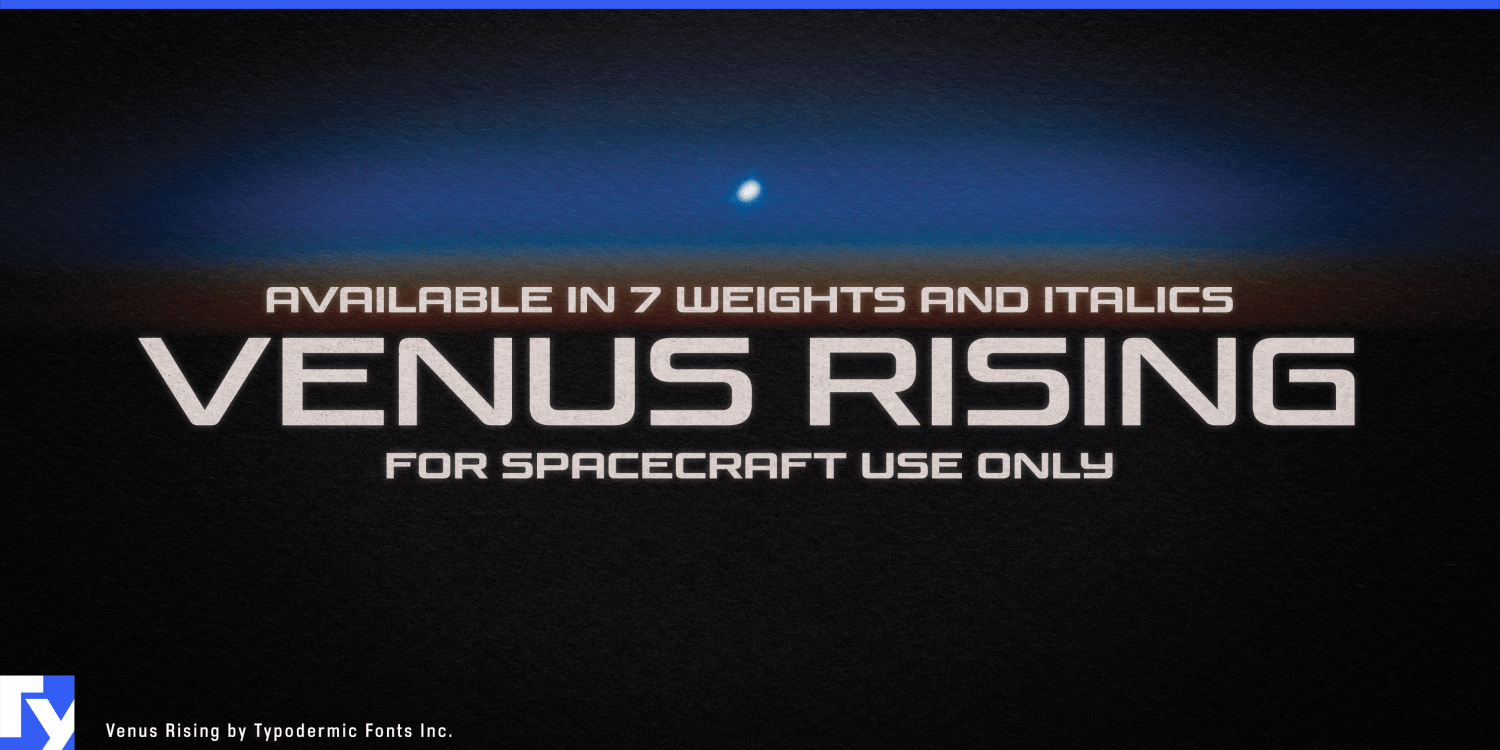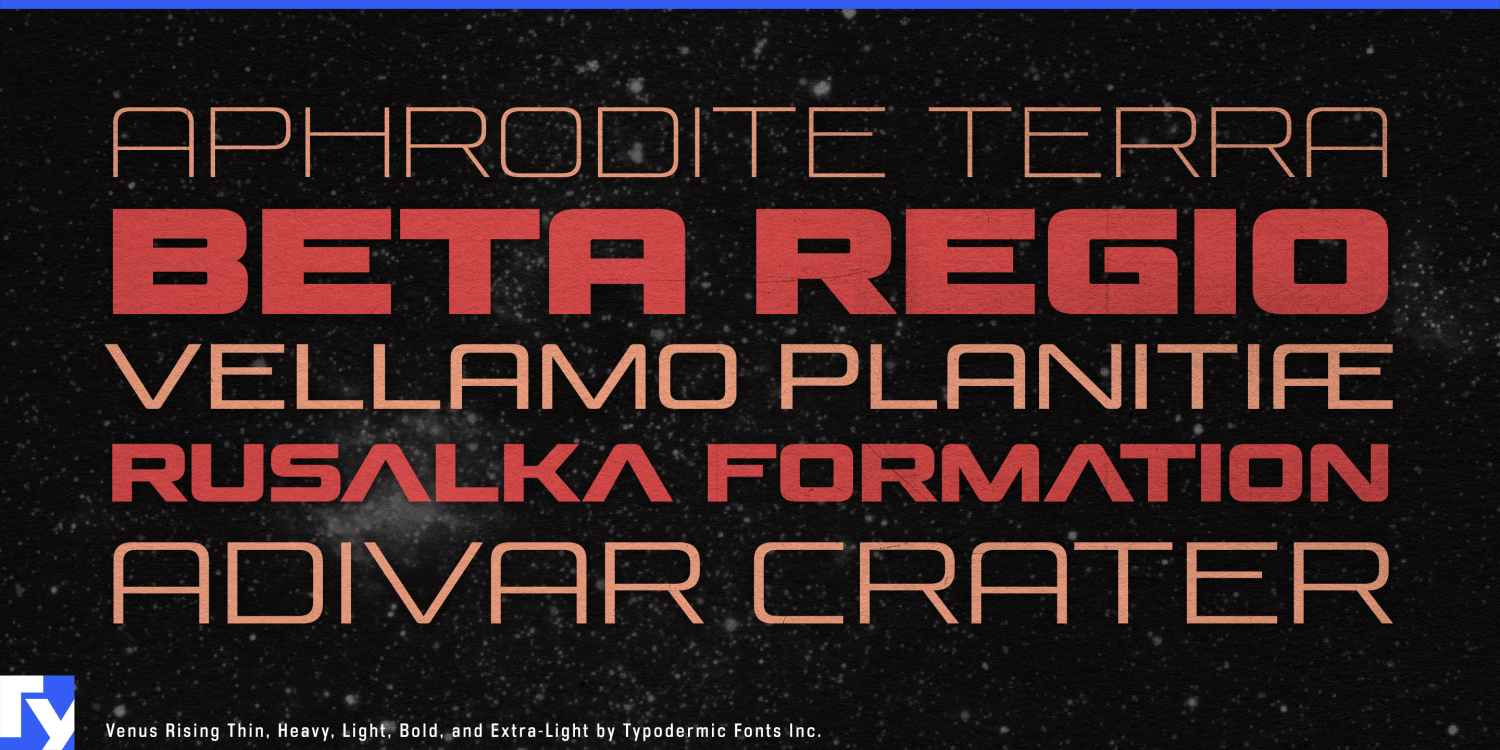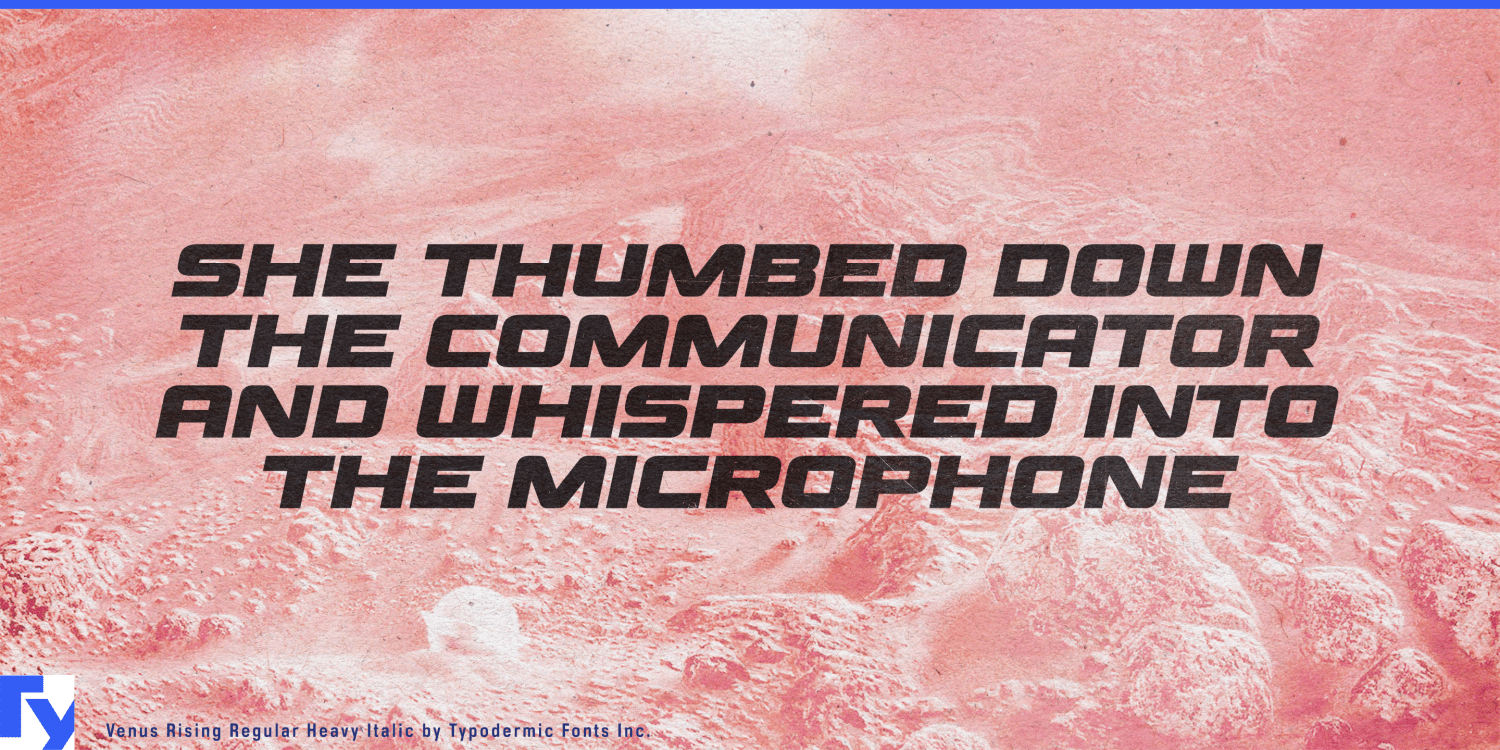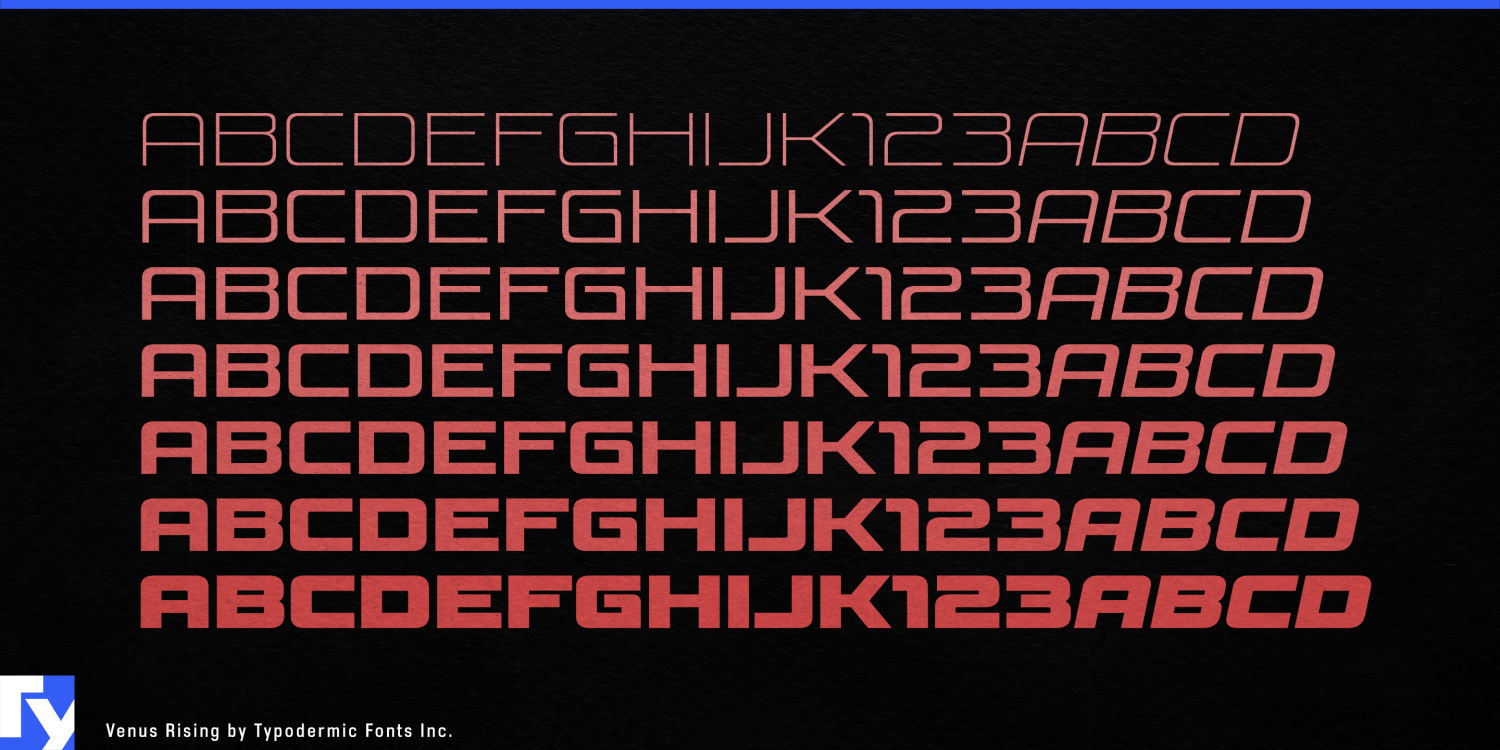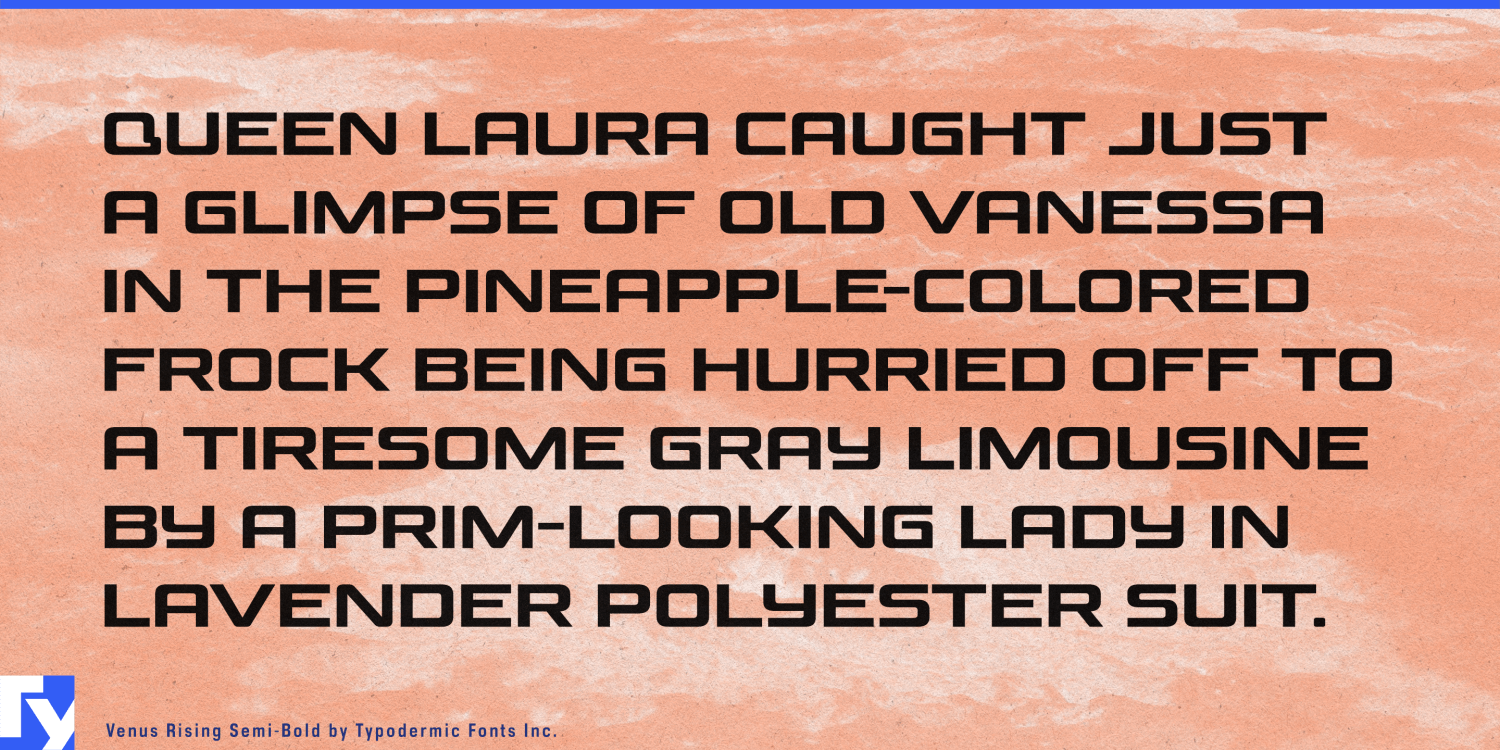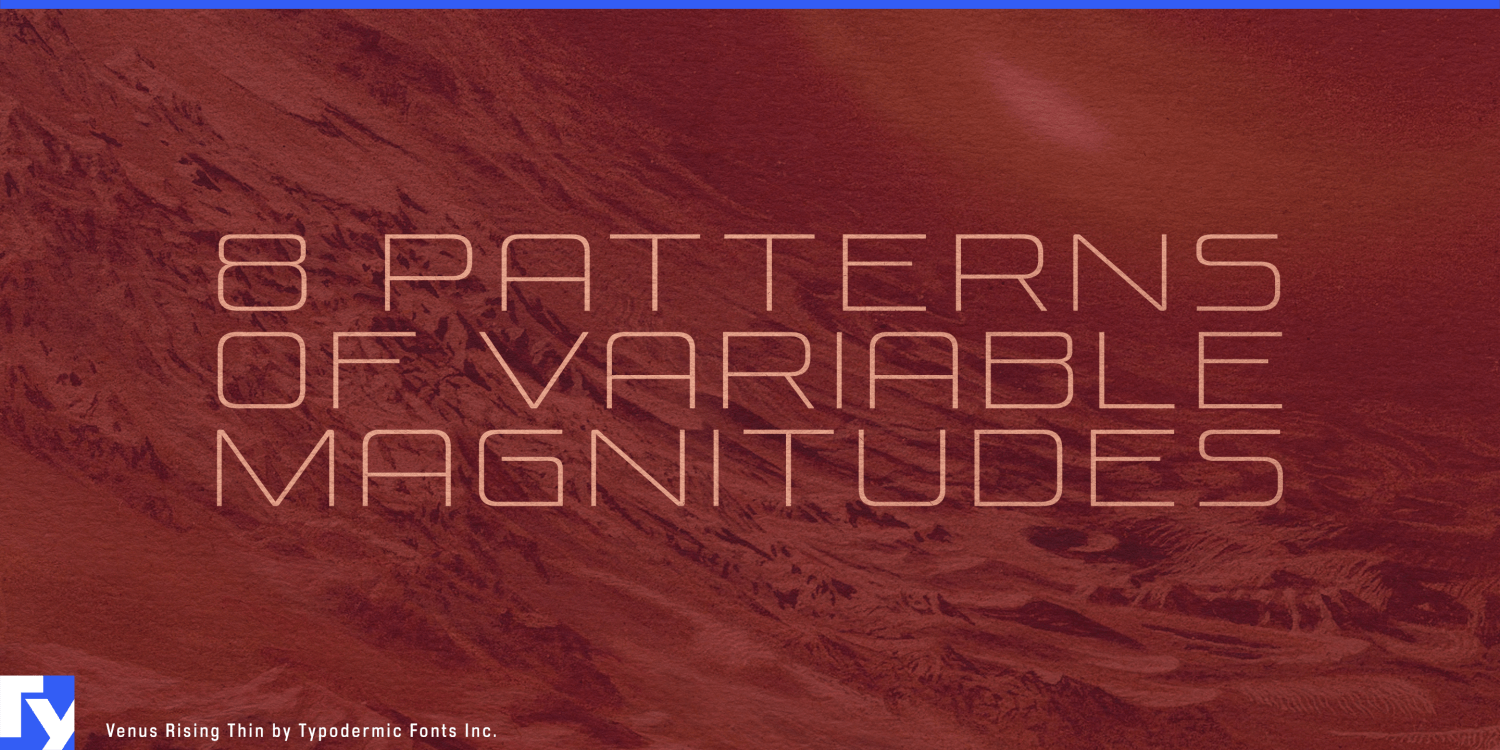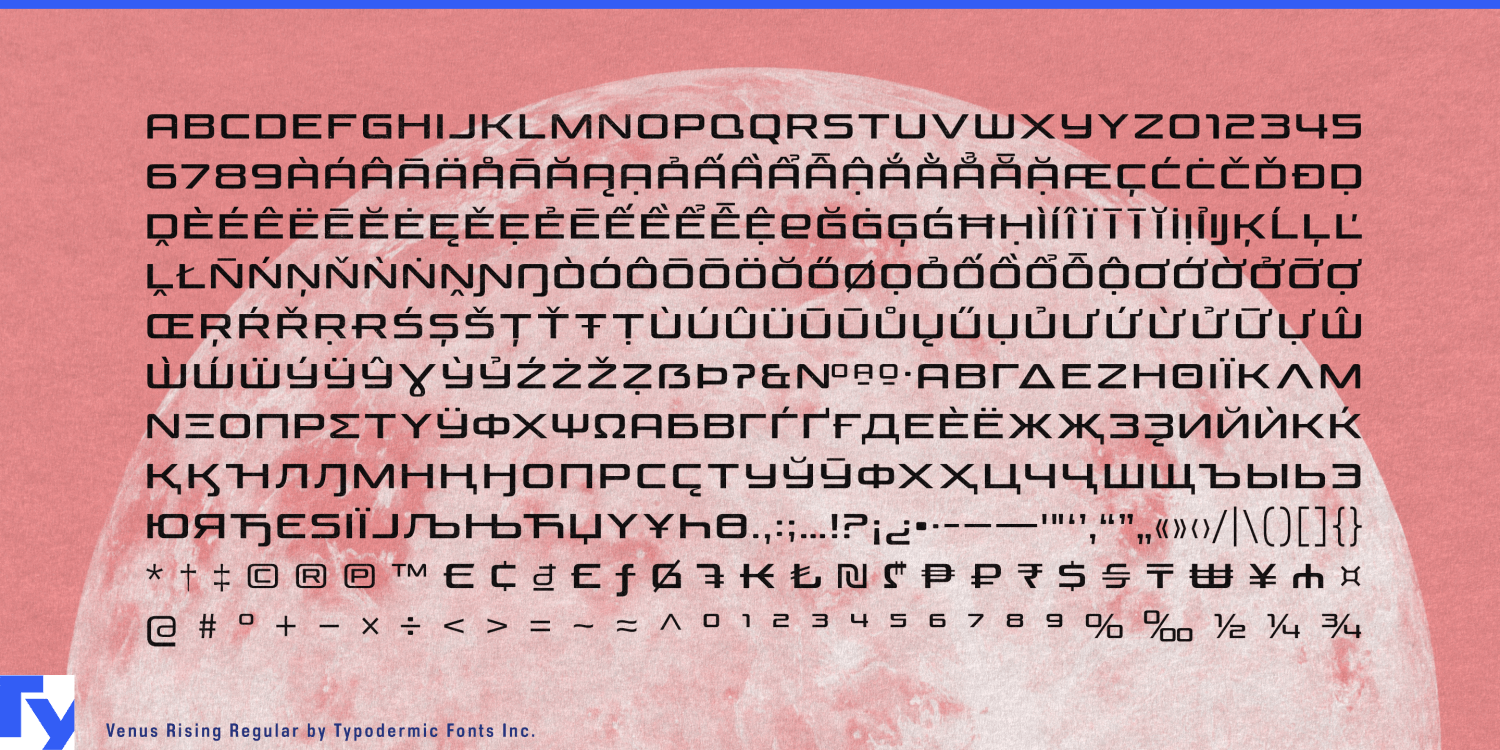
Venus Rising
Space typography has plenty of past futures. One direction reaches back to twentieth-century space programs; another leans on cinematic science fiction with cuts, armor and aggressive technological detail. Neither is necessarily right for the spacecraft, satellite systems and lunar hardware being designed for the next decade. Venus Rising offers a different aerospace voice, futuristic through proportion and construction rather than costume.
Its wide, low letterforms seem built to travel across a machine, vehicle or panoramic screen. Squared curves, modular details and interruptions in the strokes establish the technical character without tying the family to one fictional universe. Seven weights from Thin through Heavy, each with an italic, turn that idea into a complete display system. Lighter styles can feel skeletal and scientific; heavier weights give the same structure enough mass for spacecraft names, launch campaigns and major titles.
Commercial aerospace is a natural setting. Satellite manufacturers, launch providers, Earth-observation companies, lunar programs and in-space logistics projects can use Venus Rising for spacecraft series names, satellite fleets, mission titles, rover graphics, vehicle markings and exhibition displays. A quieter companion face can handle telemetry, specifications and dense technical information; Venus Rising names the machine and the program around it.
Its broad proportions are especially effective on spacecraft bodies, launch-vehicle mockups, exhibition walls and widescreen mission graphics. The same structure carries naturally into launch media, including countdown broadcasts, spacecraft reveals, conference displays and mission announcements.
Space simulation and strategy games can use the family on an even larger scale. Fictional manufacturers, ship classes, orbital stations, factions, fleet names and expansion titles can share one visual architecture without relying on a single repetitive sci-fi alphabet. Different weights and italics can distinguish scientific organizations, industrial fleets and major campaign identities while remaining recognizably related.
Planetariums, aerospace museums and science centers offer another strong setting. Dome-show titles, lunar exploration exhibits, satellite galleries and planetary-science displays can signal spaceflight without making serious science look like a movie tie-in.
Venus Rising is most useful when futuristic typography has to become a system rather than a one-shot effect. Its wide proportions suit machines, screens and exhibition environments; its fourteen styles let that identity change weight and stance without changing worlds.